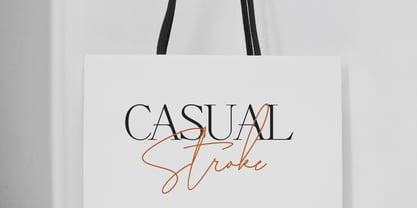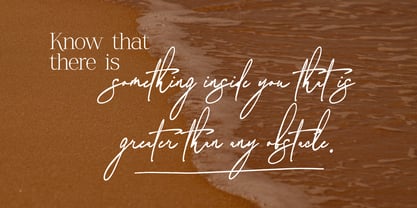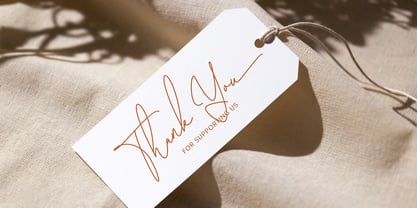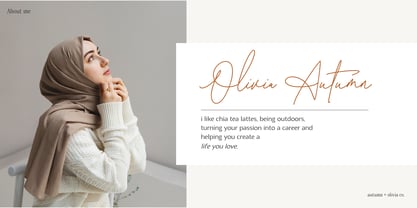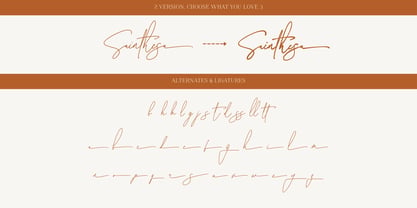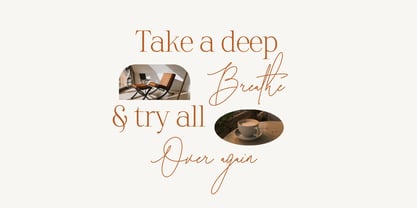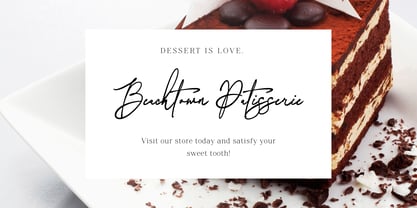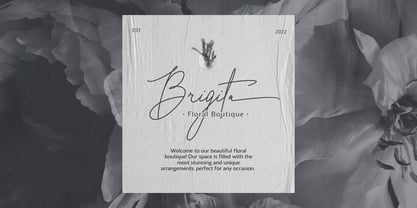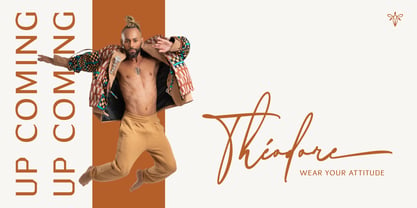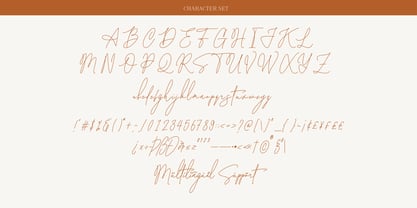
Sainthesa
by Sronstudio
The Sainthesa Font Family was designed by Muhamad Yusron Billah and published by Sronstudio. Sainthesa contains 2 styles and family package options. More about this family
Sainthesa is a modern script font that effortlessly blends elegance and versatility. Available in two stunning versions—Monoline and Signature/Organic—Sainthesa is designed to suit a wide range of creative needs. Whether you’re aiming for a clean, minimal look or a natural, handwritten feel, this font delivers style and sophistication in every stroke.
Each version comes with swash ending alternates to add a graceful finishing touch to your lettering, making it perfect for branding, logos, wedding invitations, social media graphics, and more.
- Two versions: Monoline & Signature
- Swash ending alternates
- ligatures
- Uppercase & lowercase characters
- Numerals & punctuation
- Multilingual support